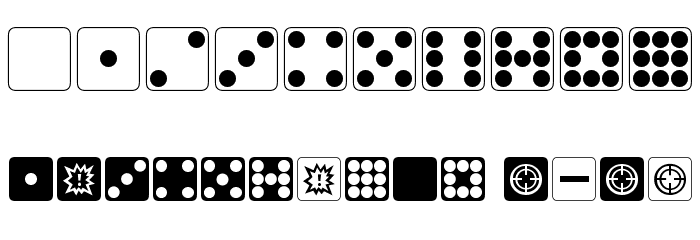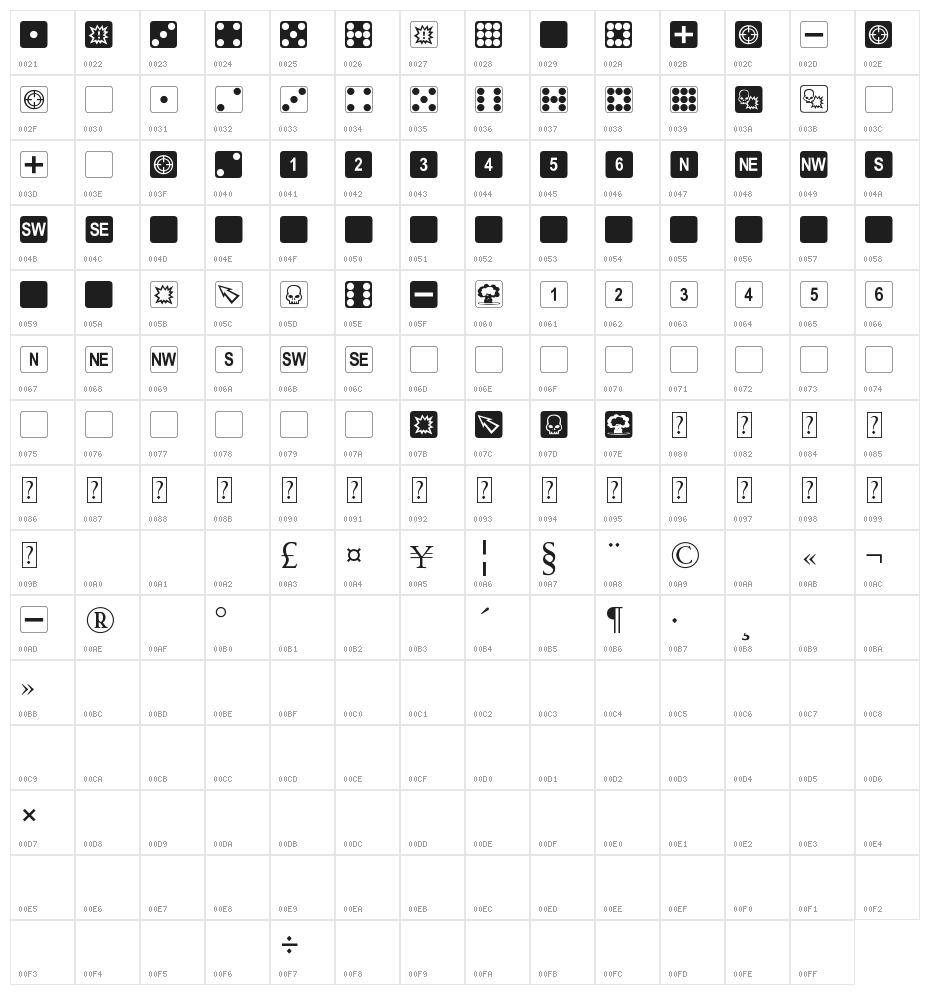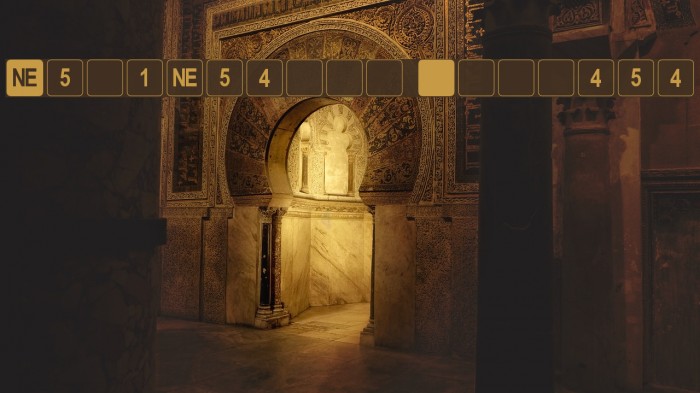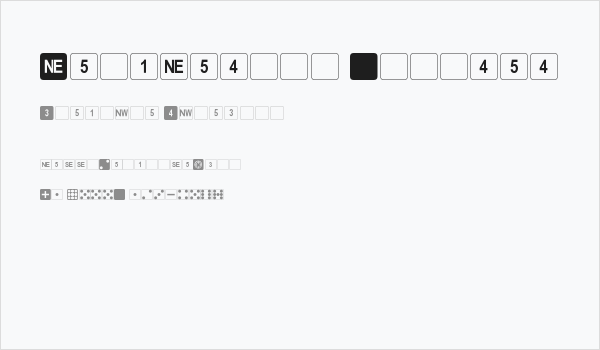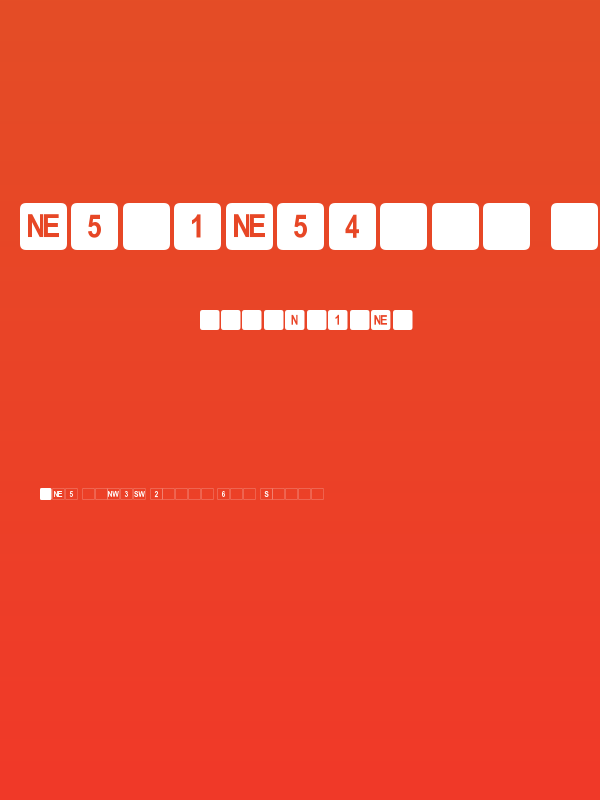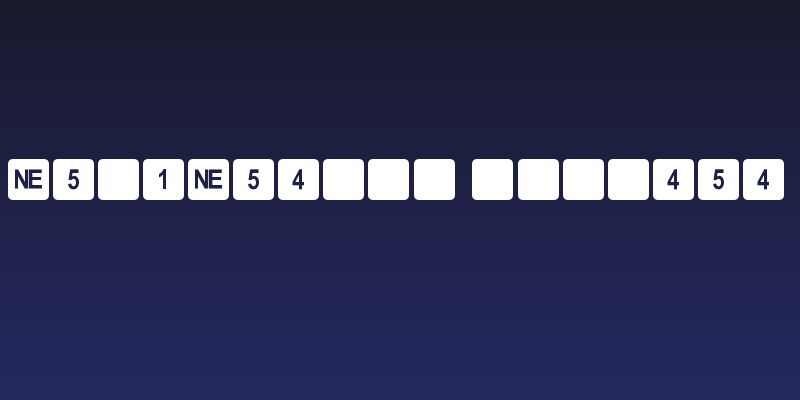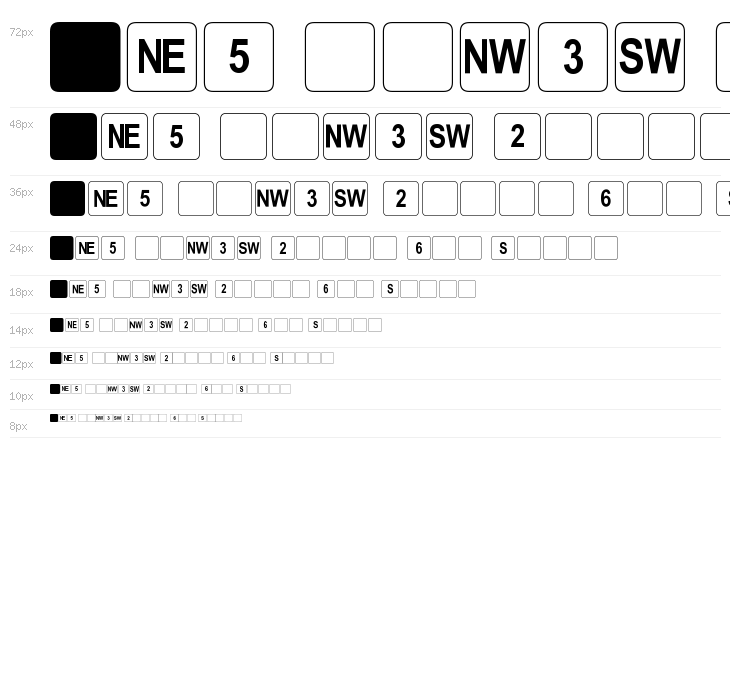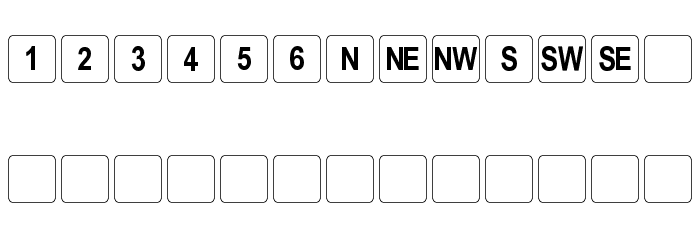
Hexahedron Rounded Font
Hexahedron Rounded Description
This font is a unique and creative design that incorporates elements of dice and directional indicators. The characters are enclosed in rounded squares, giving a playful and modern appearance. Numbers 1 to 6 are represented with both numerical and dice dot patterns, while directional indicators like N, NE, NW, S, SW, and SE are included, making it versatile for board games or navigation-themed projects. The bold, geometric shapes are consistent throughout, providing a cohesive look. The font's rounded edges soften the overall aesthetic, making it approachable and friendly.
Use CaseLogos, Game design, Educational materials
Proposed ProjectsIdeal for board games, educational tools, navigation apps, or playful graphic designs.